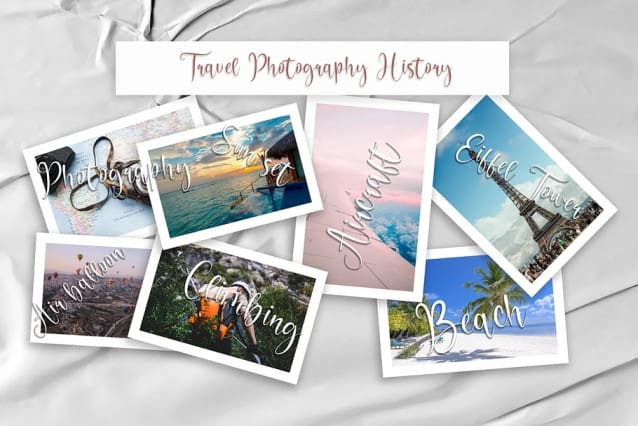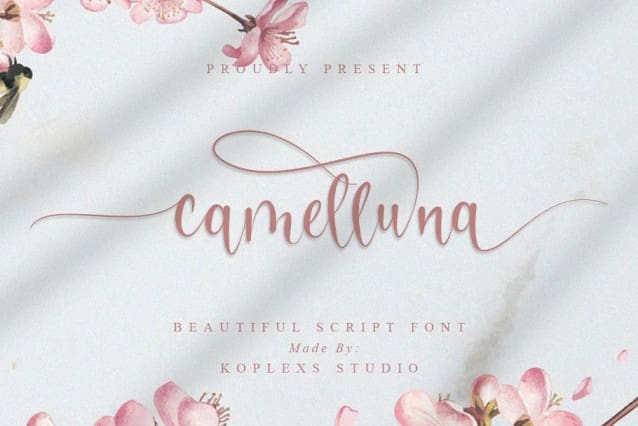
Camelluna Font
Camelluna Font is a Fresh & modern new scripts font with handcrafted calligraphy style, decorative characters and dancing baselines! Very pretty on invitations such as greeting cards, branding materials, business cards, quotes, posters and more!!
Camelluna comes with 185 glyphs. Alternate characters are divided into several Open Type features Stylistic Sets, Stylistic Alternates.